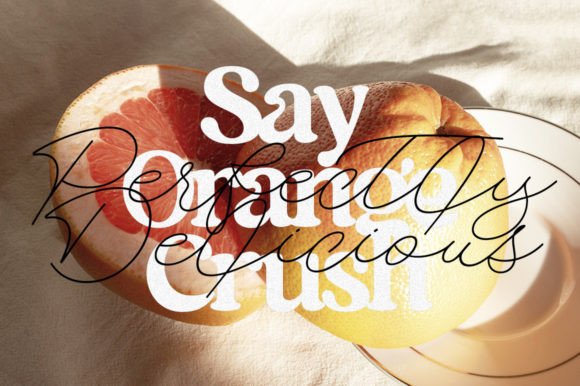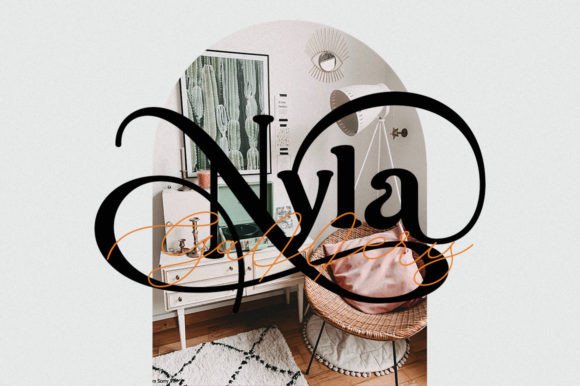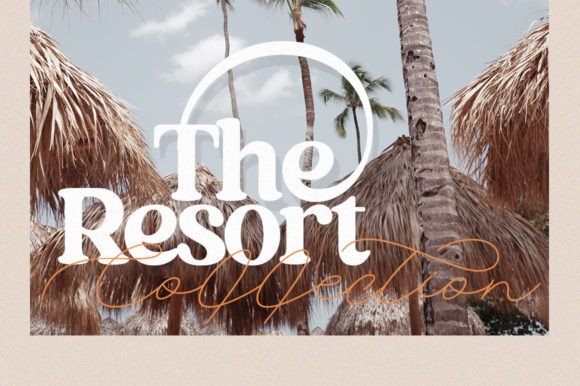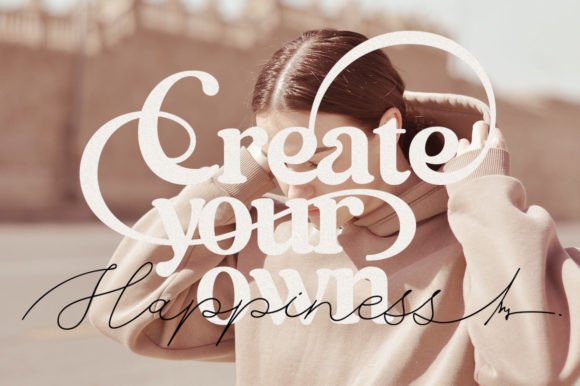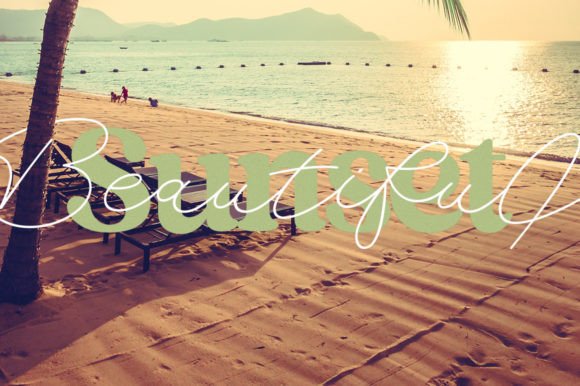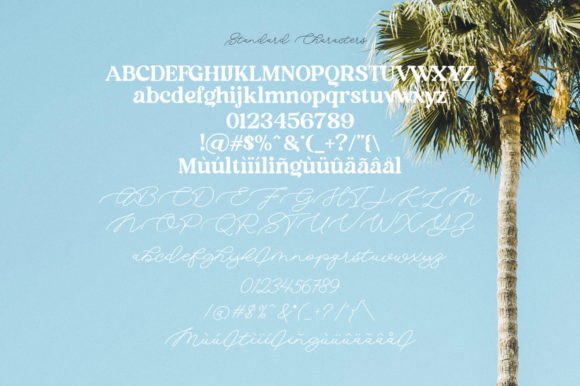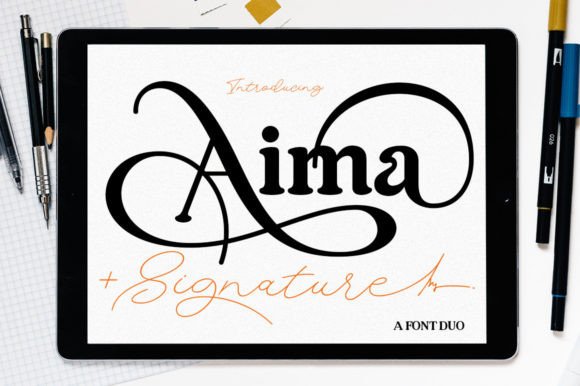
Introducing Aima Font Duo: Elevate Your Designs with a Relaxed and Energetic Vibe
Are you on the hunt for a font that embodies a carefree and lively spirit? Look no further than the Aima Font Duo, consisting of Aima Font and Aima Display. This delightful signature font is designed to add a genuine touch of authenticity to your designs, making it perfect for a wide range of creative projects. In this article, we’ll dive into the features and benefits of Aima Font Duo, and explore how it can elevate your branding, logos, greeting cards, wedding stationery, quotes, and more.
The Aima Font Duo: A Perfect Blend of Style and Versatility
The Aima Font Duo comprises two distinct fonts: Aima Signature and Aima Display. Aima Signature boasts a playful baseline that exudes a relaxed and energetic vibe, making it ideal for designs that require a personal touch. Aima Display, on the other hand, offers a more refined and elegant feel, perfect for headlines, titles, and other display purposes.
Aima Signature: The Playful Baseline Font
Aima Signature is a one-of-a-kind font that features a playful baseline, giving it a unique and carefree feel. This font is perfect for designs that require a personal touch, such as:
- Branding: Add a touch of personality to your brand with Aima Signature’s playful vibe.
- Logos: Create a memorable logo that stands out from the crowd with Aima Signature’s unique feel.
- Greeting cards: Make your greeting cards more special with Aima Signature’s warm and inviting tone.
Aima Display: The Elegant Companion Font
Aima Display is the perfect companion font to Aima Signature. This font offers a more refined and elegant feel, making it ideal for:
- Headlines: Create attention-grabbing headlines with Aima Display’s bold and elegant style.
- Titles: Add a touch of sophistication to your titles with Aima Display’s refined feel.
- Display purposes: Use Aima Display to create stunning displays that showcase your creative work.
Why Choose Aima Font Duo?
So, why should you choose Aima Font Duo for your next design project? Here are just a few reasons:
- Authenticity: Aima Font Duo adds a genuine touch of authenticity to your designs, making them stand out from the crowd.
- Versatility: The Aima Font Duo offers a range of customization options, making it perfect for a wide range of creative projects.
Tips and Tricks for Using Aima Font Duo
Here are some tips and tricks to help you get the most out of Aima Font Duo:
- Experiment with different combinations: Try pairing Aima Signature with Aima Display to create stunning headline and body text combinations.
- Use it for branding: Aima Font Duo is perfect for branding projects, adding a personal touch to your brand.
- Add a personal touch: Use Aima Signature’s playful baseline to add a personal touch to your designs.
In conclusion, the Aima Font Duo is a must-have for designers and crafters looking to add a relaxed and energetic vibe to their designs. With its playful baseline and elegant companion font, Aima Font Duo offers a range of customization options to complement your artistic endeavors. Whether you’re working on branding, logos, greeting cards, wedding stationery, quotes, or more, Aima Font Duo is the perfect choice. So why wait? Download Aima Font Duo today and take your designs to the next level!